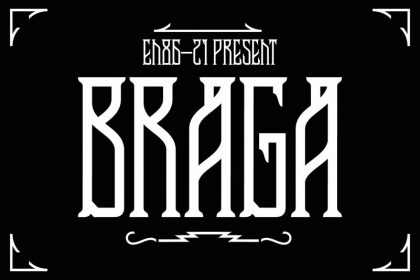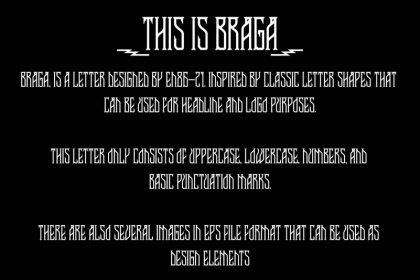
Braga Display Font
EN86-21 presents Braga, inspired by classic letter shapes that can be used as headlines or logos letter package consists of Braga.otf (uppercase, lowercase letters, numbers, and bassic punctuation marks), extras (eps file format)
EN 86-21 Present Braga Font only containt: A-Z. a-z, 1-0, and basic punctuation